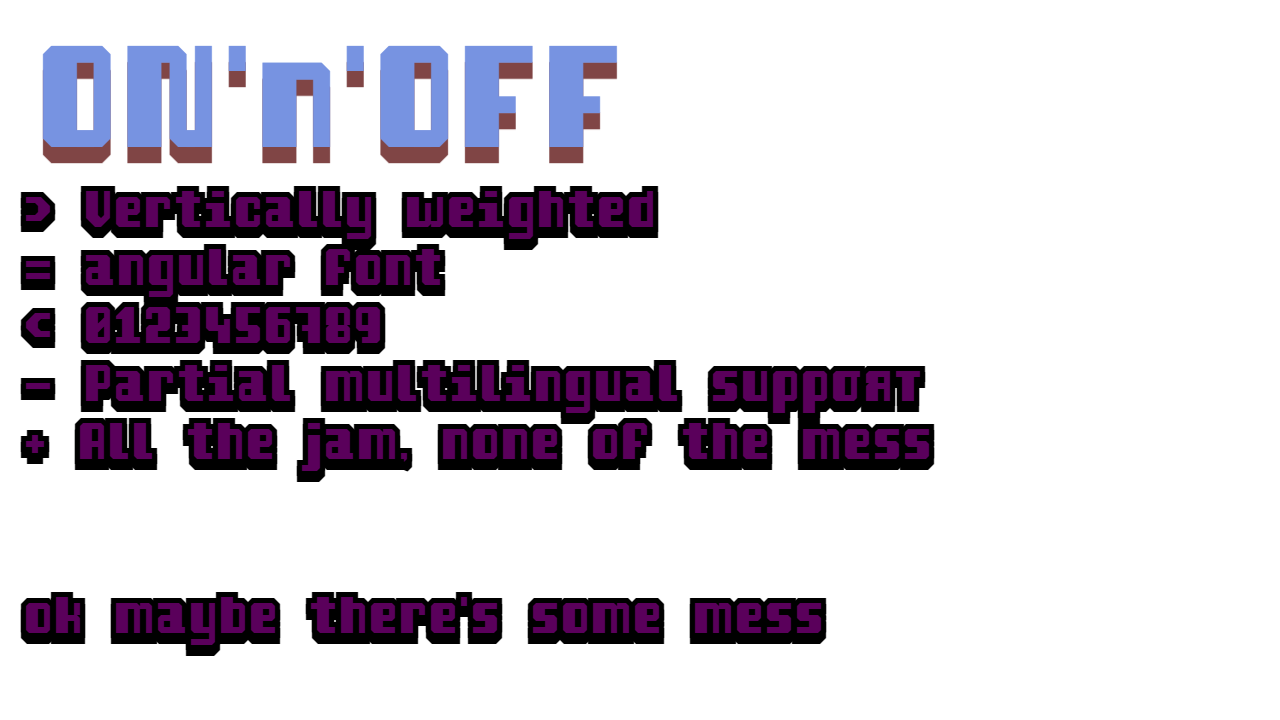
• A vertically-weighted geometric font I've somehow been making and updating for well over a year! (partly because I was locked out for a while...)
Funnily enough I'm not really focusing on doing it in any particular order - honestly, it's just a side project.
Just a lil tester of the font at it's current state